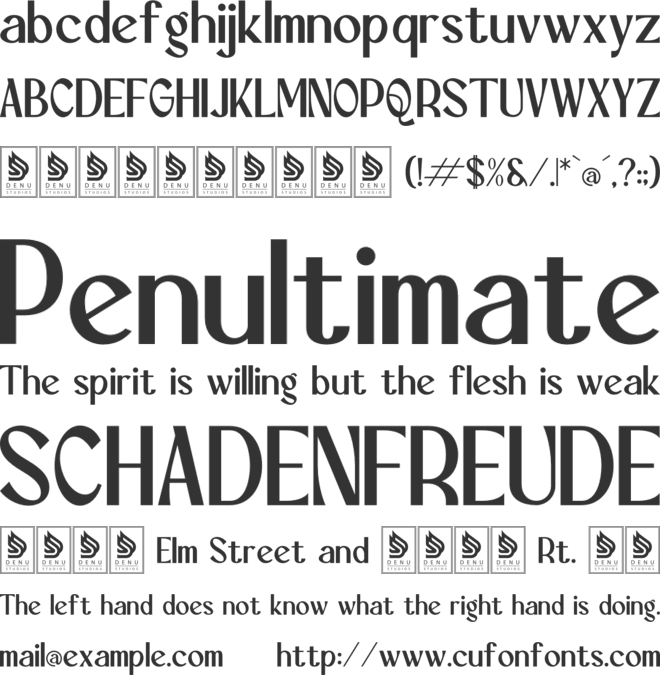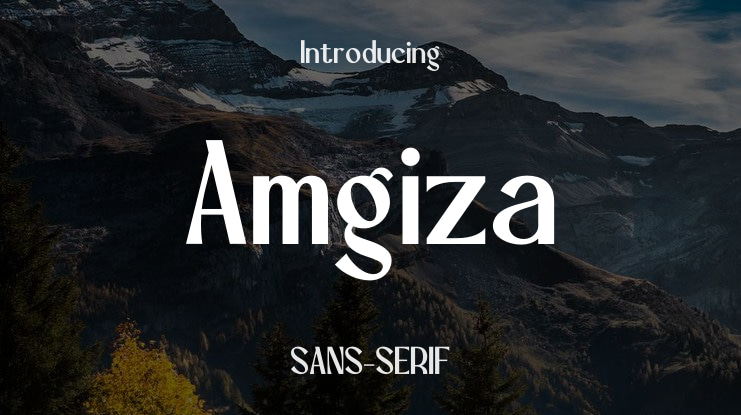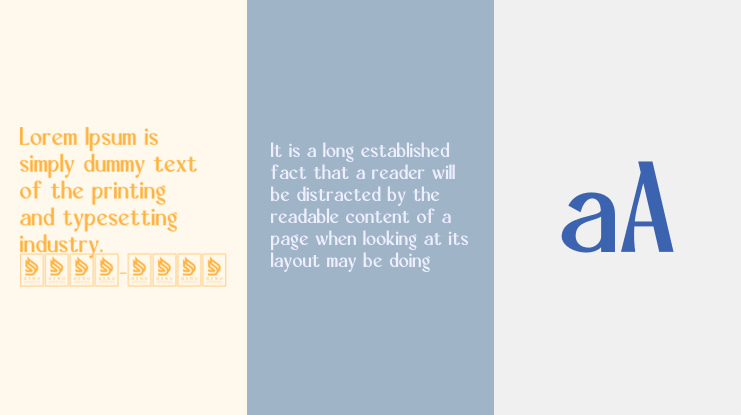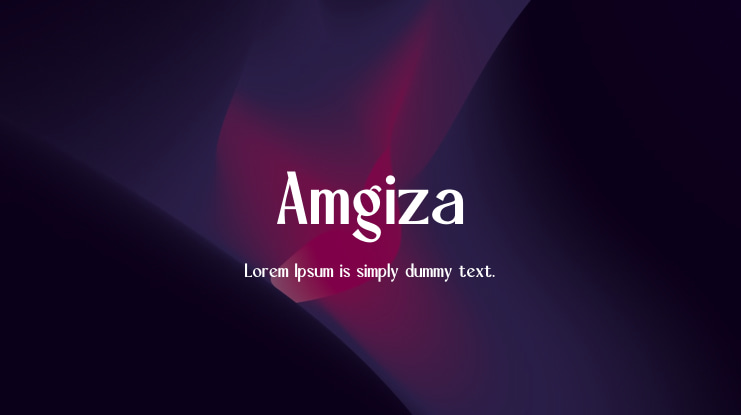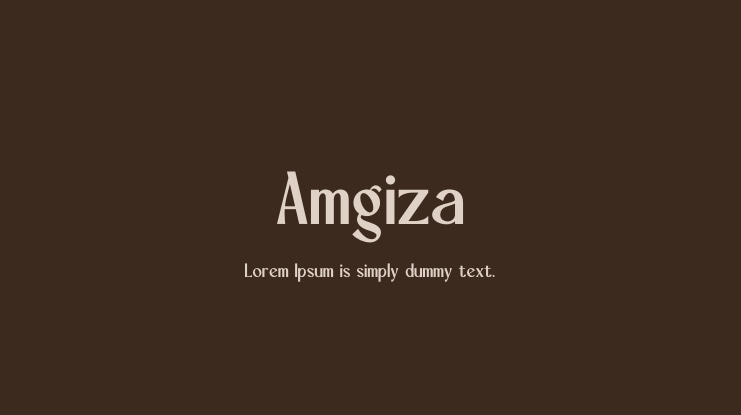
Amgiza Font
Amgiza | Casual Stylish Sans Serif is perfect for various projects such as logos, branding, homeware designs, product packaging, mugs, quotes, posters, shopping bags, t-shirts, book covers, name cards, invitation cards, greeting cards, labels, photography, watermarks, special events, and all your other projects that need a Casual Stylish Sans Serif touch.